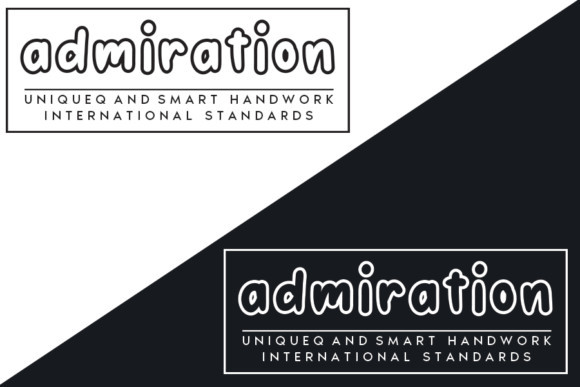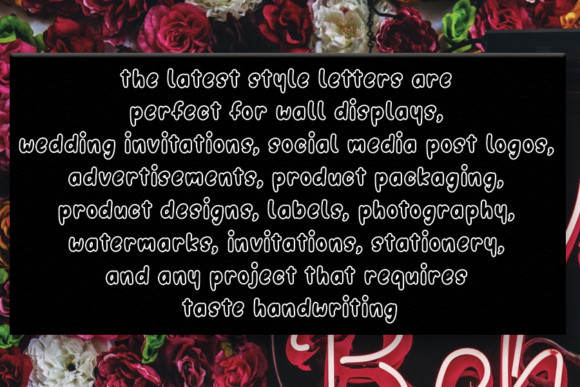
Admiration Font
Admiration is a magical display font carefully created with a touch of elegance. This is a beautiful combination of timeless elegance and authentic calligraphy. It features an incredibly classic style, while still keeping a friendly feel. Whether you’re looking for fonts for Instagram or calligraphy scripts for DIY projects, Admiration will turn any creative idea into a true piece of art!